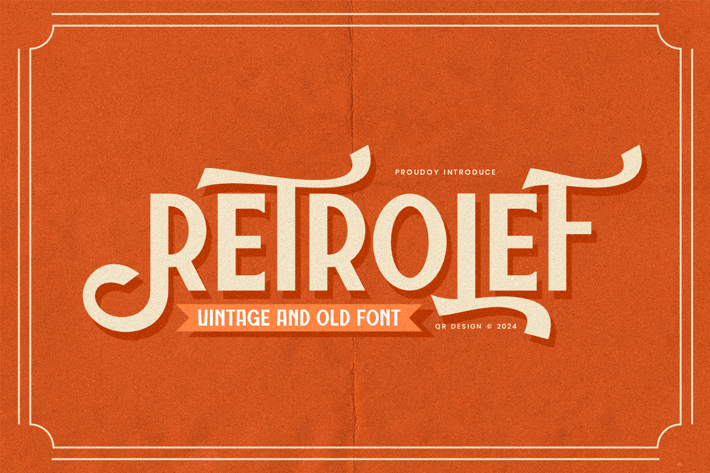
Retrolef - Vintage & 1980s Font
Retrolef Font is a classic and authentic display font.
The font is suitable for any branding project like poster, logo, retro, and many more.